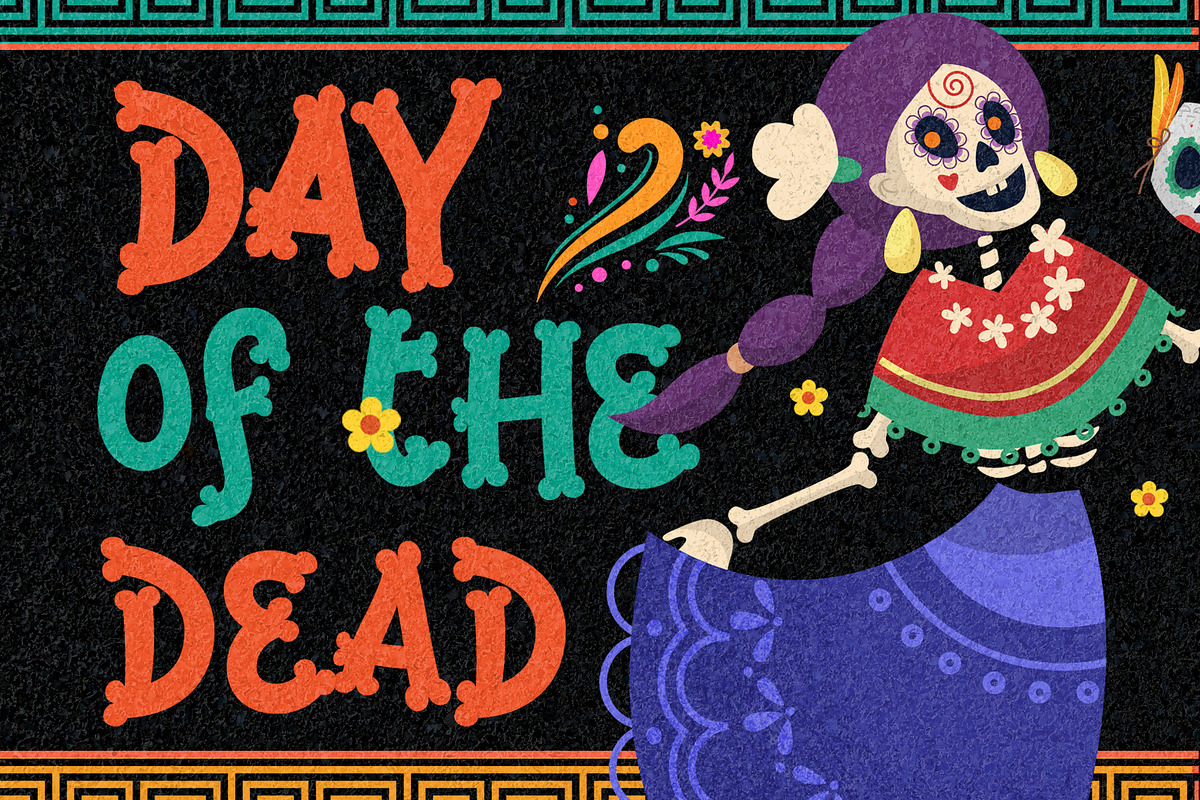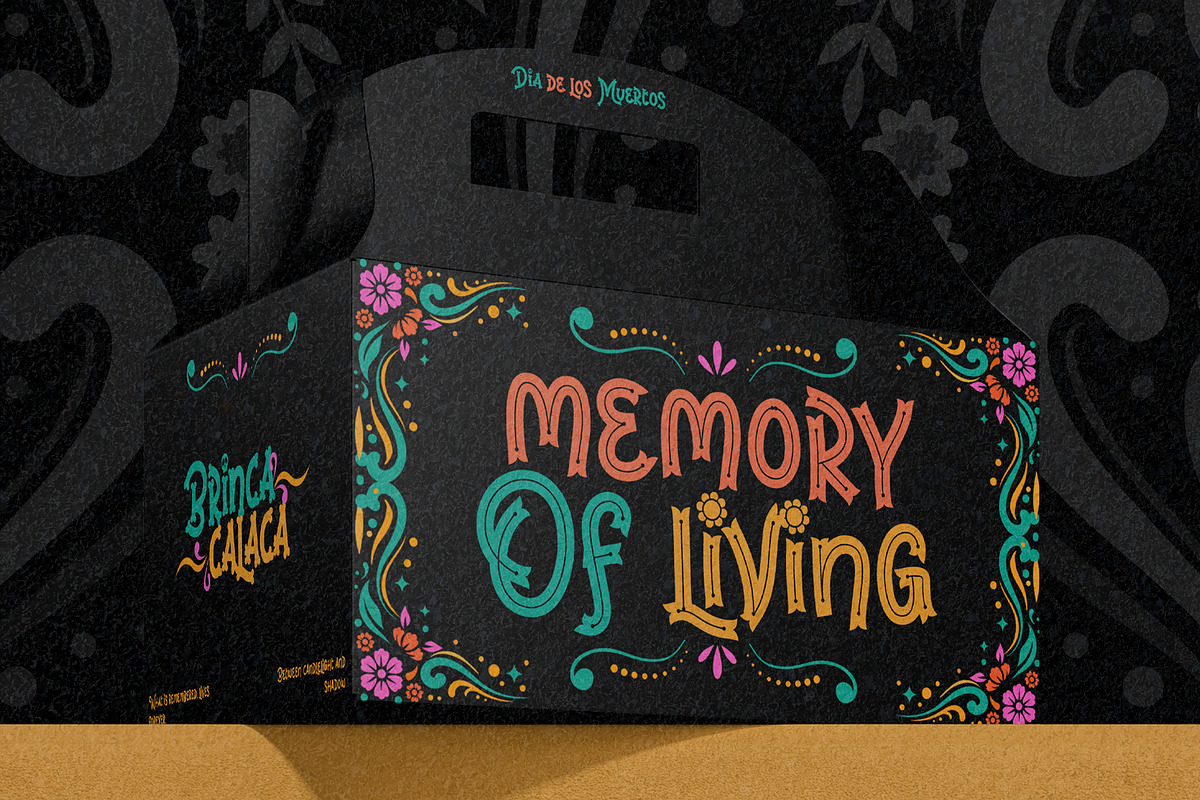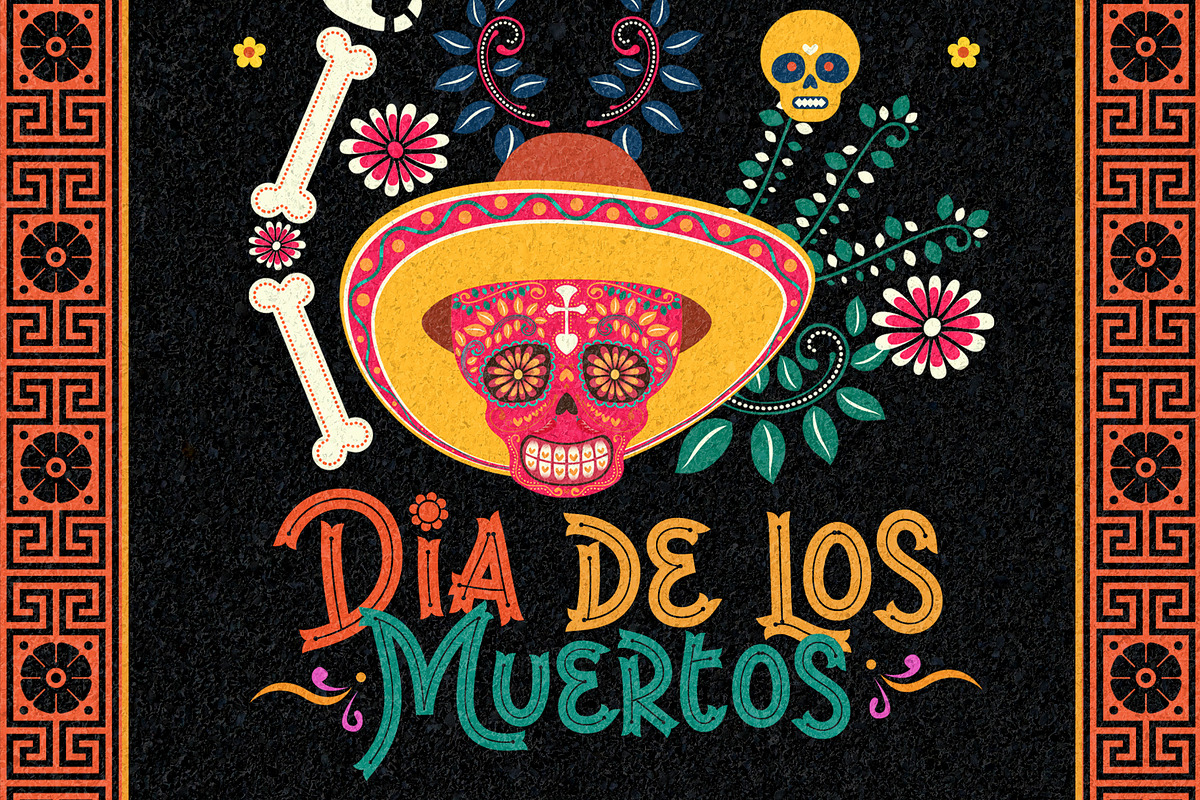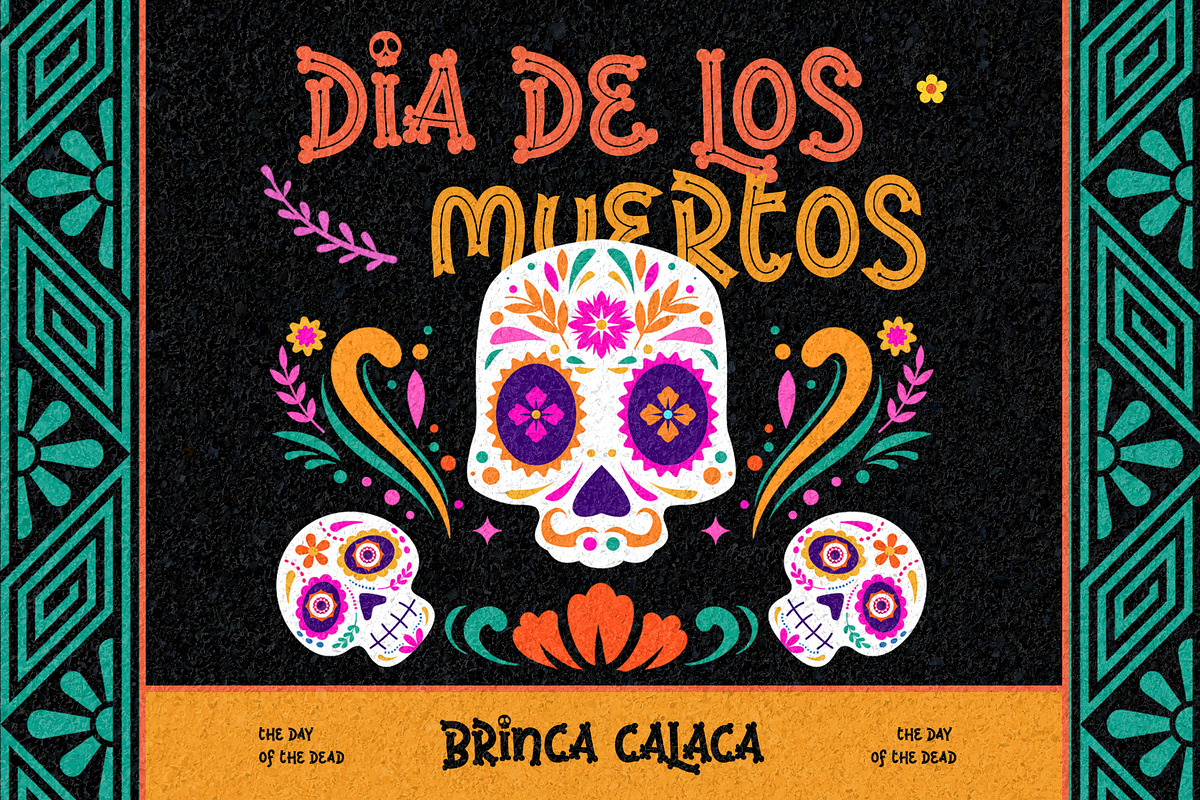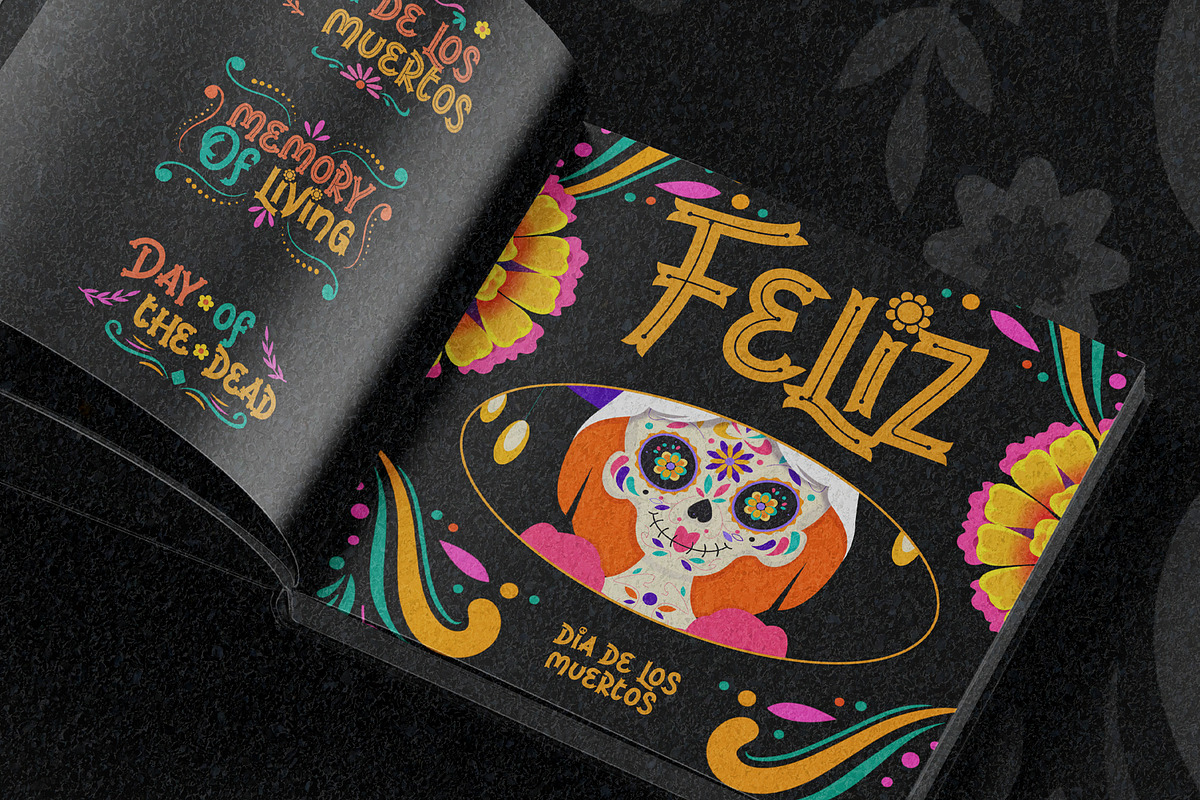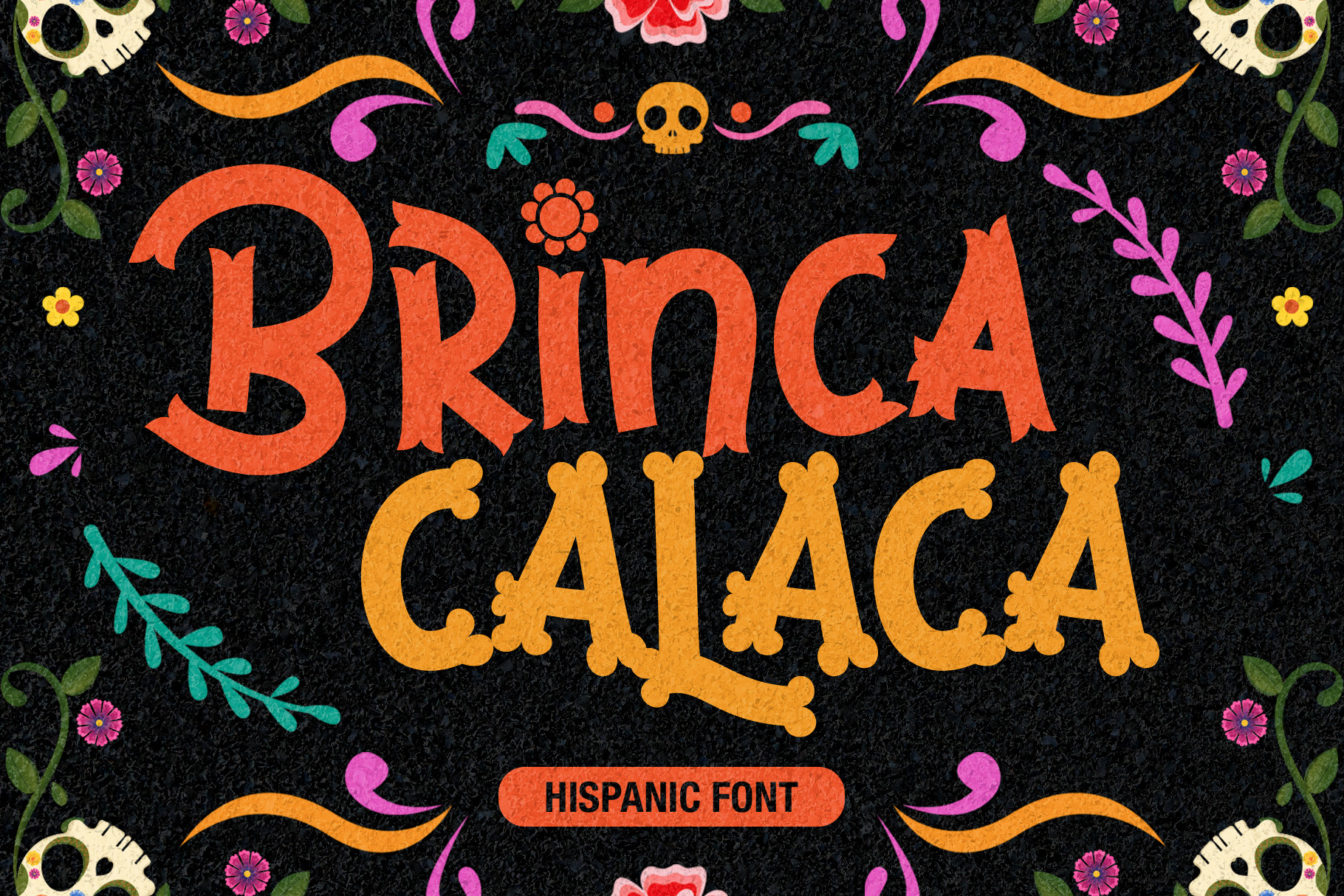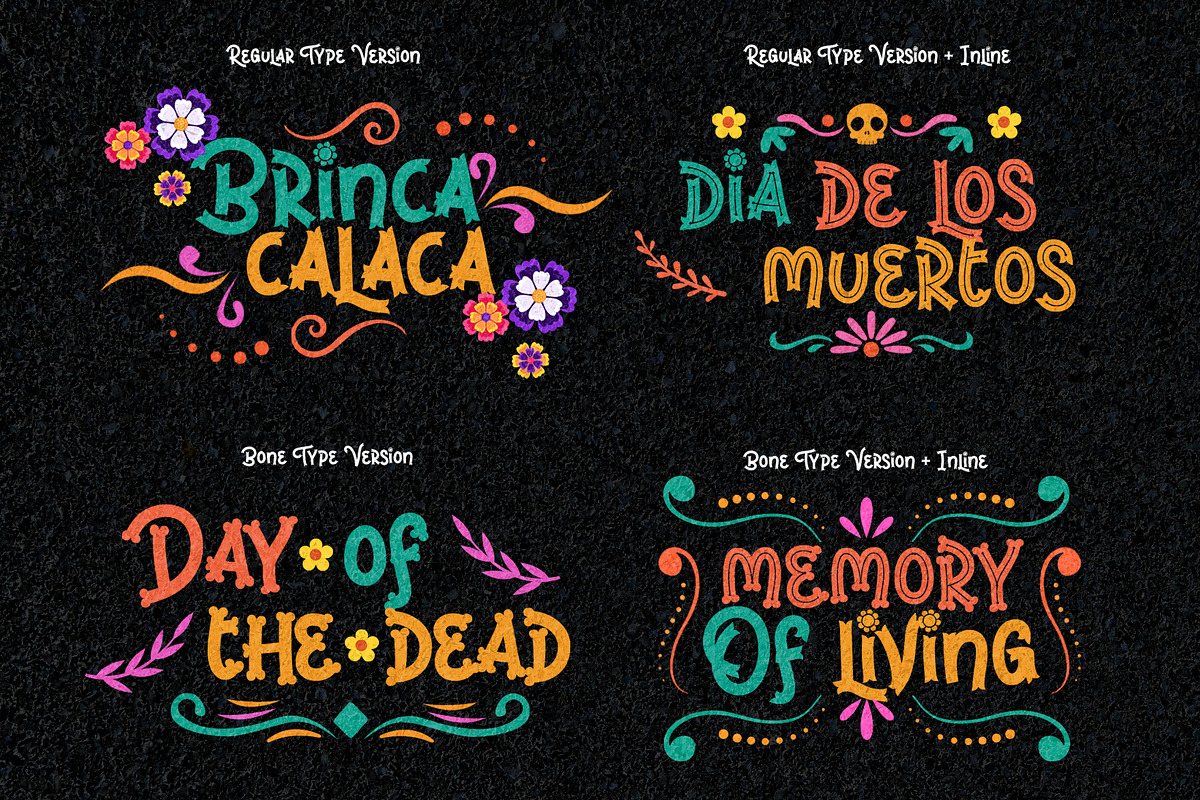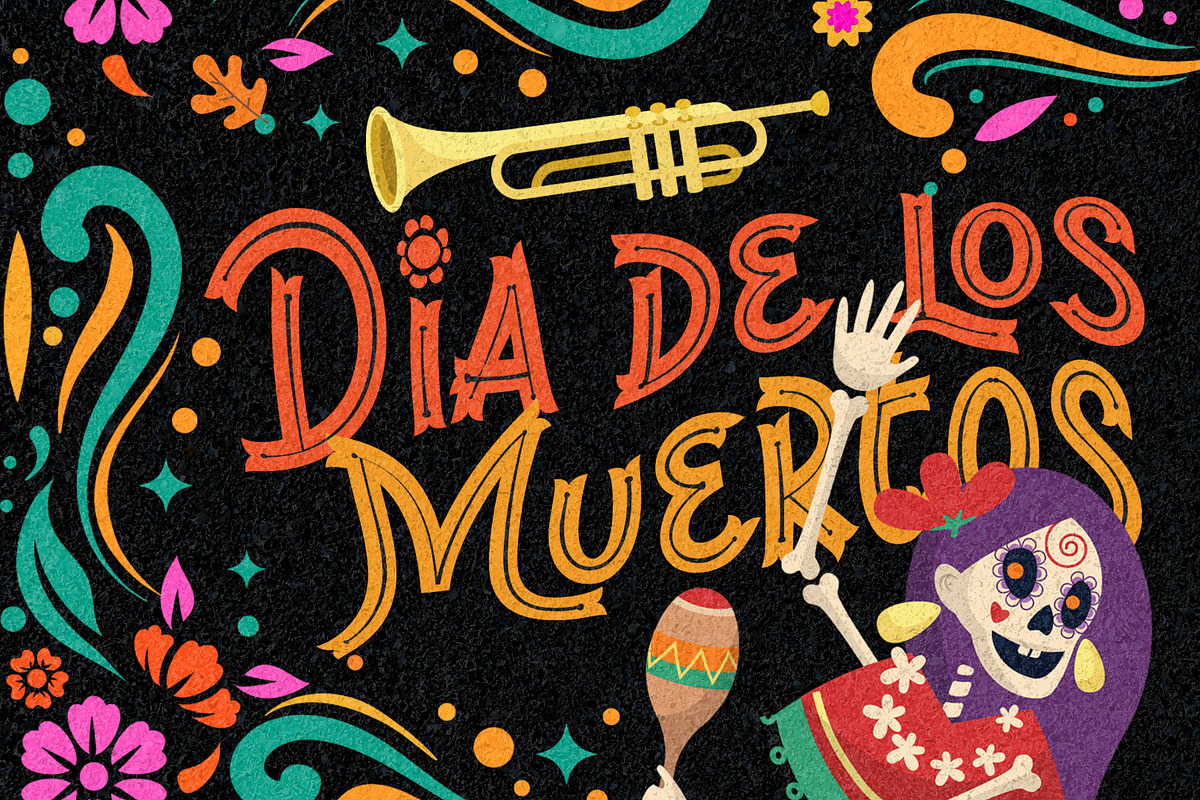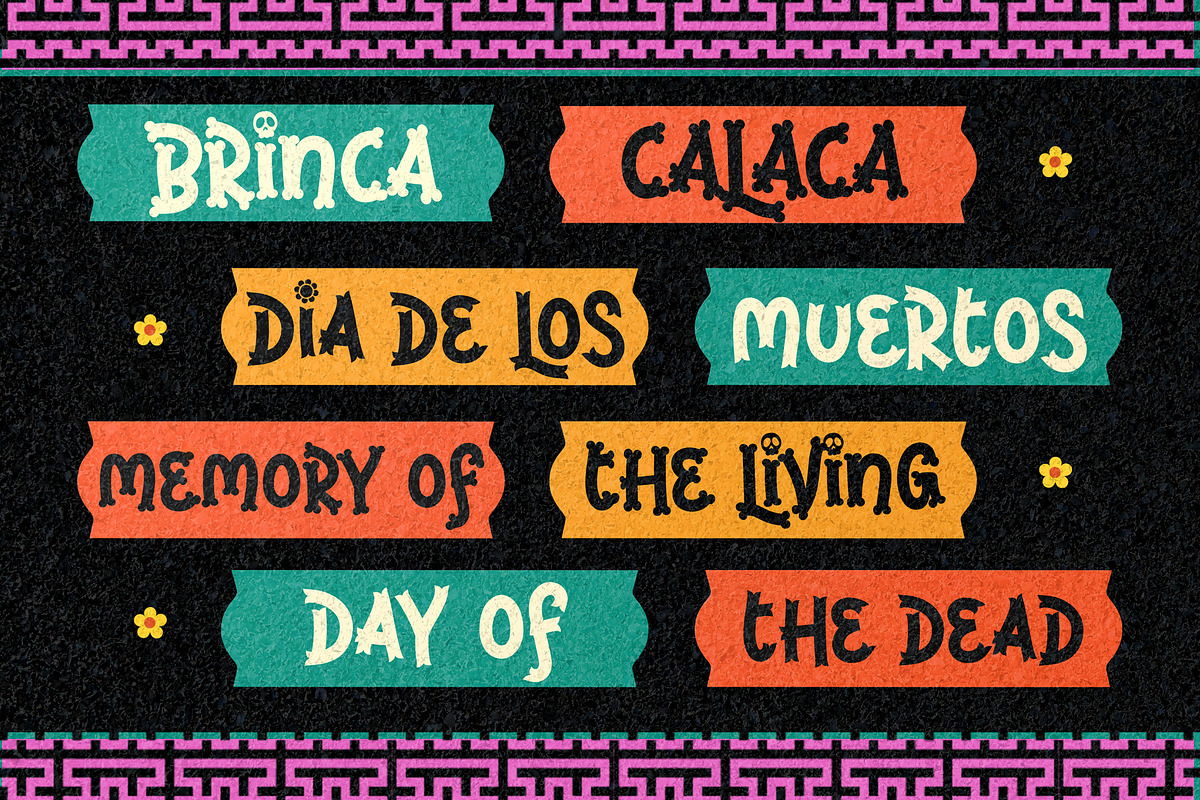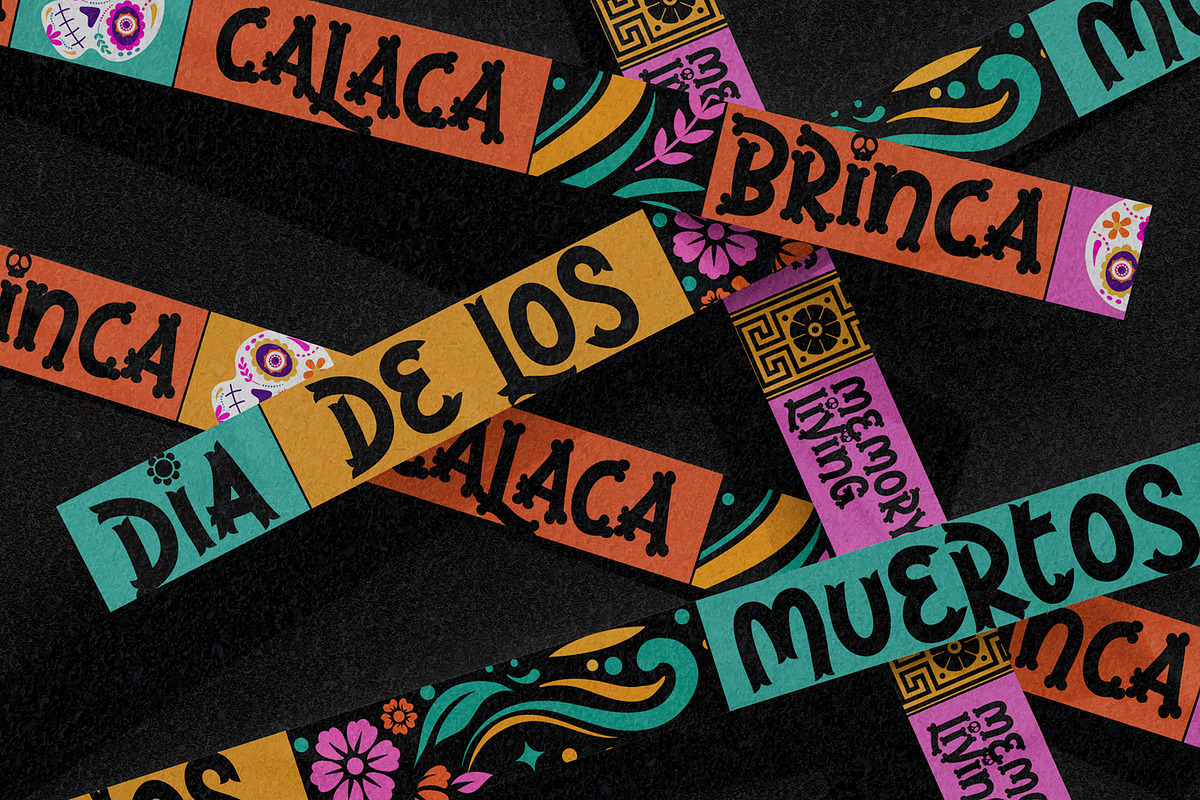
Brinca Calaca - Display Family Font
Brinca Calaca is a playful decorative display font inspired by Día de los Muertos celebrations, Mexican folk art, colorful floral ornaments, traditional festival posters, and handcrafted Hispanic lettering.
Its bold shapes, irregular curves, and expressive decorative details create a cheerful personality that feels festive, cultural, and full of movement. Brinca Calaca is designed for projects that need memorable typography with a warm handmade character.
Overview
Brinca Calaca combines sturdy display letterforms with whimsical folk-inspired details. The uppercase characters feel bold and celebratory, while the lowercase forms provide a more casual rhythm for short phrases, supporting titles, and playful compositions.
The font works especially well with vibrant palettes, floral illustrations, skull motifs, paper textures, ornamental borders, and traditional festival graphics. It is ideal for prominent headlines, logos, event names, packaging, invitations, and seasonal promotional designs.
Use Brinca Calaca as the primary display typeface, then pair it with a simple sans serif or readable serif font for descriptions and supporting information.
Brinca Calaca decorative display font
Uppercase characters A–Z
Lowercase characters a–z
Numerals 0–9
Standard symbols and punctuation
Accented Latin characters shown in the final font package
Día de los Muertos-inspired display style
Playful Hispanic and folk-art personality
Bold handcrafted letterforms
Organic curves and irregular decorative details
Uppercase and lowercase alphabet
Complete numerals
Standard symbols and punctuation
Strong readability at medium and large sizes
Ideal for headlines, logos, event names, and short phrases
Works beautifully with flowers, skulls, ornaments, and festive illustrations
Effective with bright colors and textured backgrounds
Easy to pair with clean serif or sans serif typefaces
Suitable for cultural, food, entertainment, and seasonal branding
Ideal For / Use Cases
Día de los Muertos posters
Hispanic festival branding
Mexican-inspired event graphics
Cultural celebration invitations
Restaurant and cantina branding
Taco and street-food packaging
Food-truck identities
Fiesta posters
Greeting cards
Party invitations
Festival merchandise
Sticker designs
Product labels
Beverage packaging
Editorial headlines
Book and album covers
YouTube thumbnails
Promotional banners
Children’s cultural projects
Tourism campaigns
Souvenir designs
Decorative signage
Seasonal campaigns
Playful visual identities
Use the font at medium or large sizes to preserve its decorative details and expressive shapes. It is most effective for logos, headlines, event names, product titles, and short promotional messages rather than long paragraphs.
Combine it with bright orange, pink, turquoise, yellow, purple, and green tones to strengthen its festive character. Pair Brinca Calaca with a clean sans serif font for dates, descriptions, menus, and supporting information.
Best used for medium and large display typography
Decorative details may become less visible at very small sizes